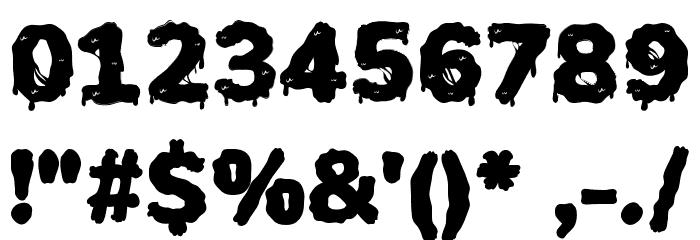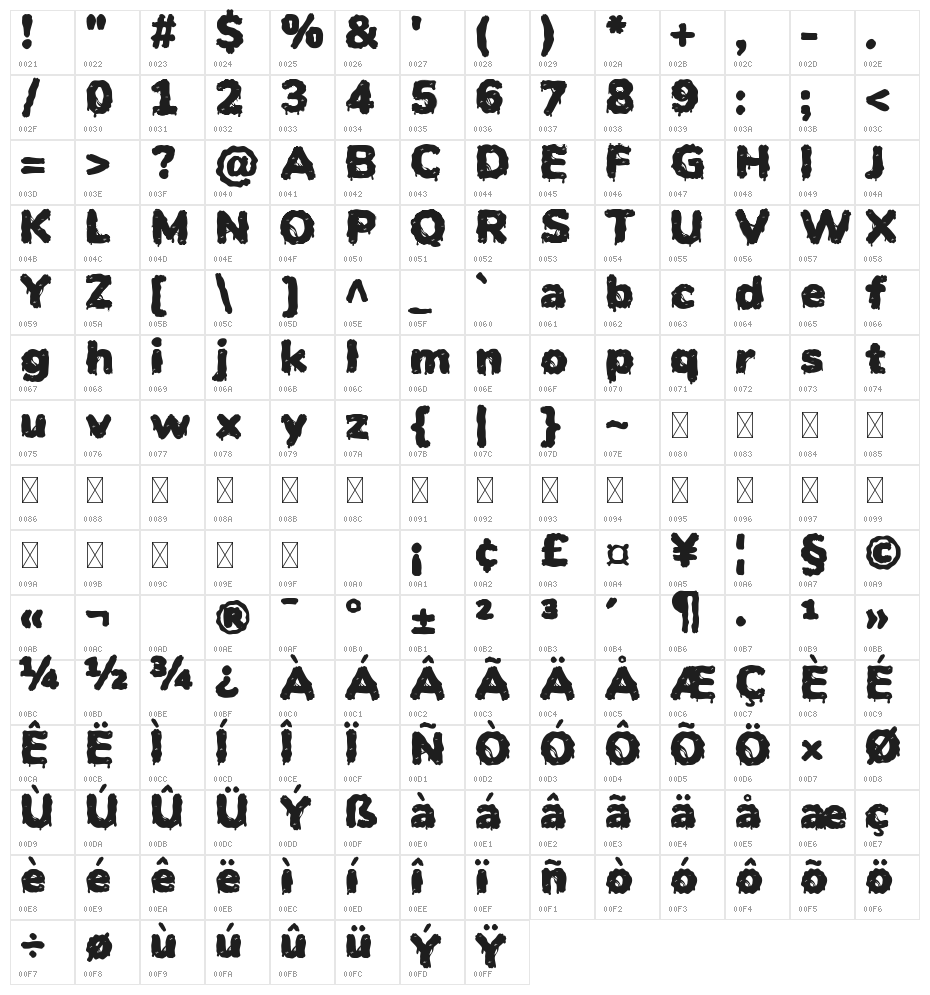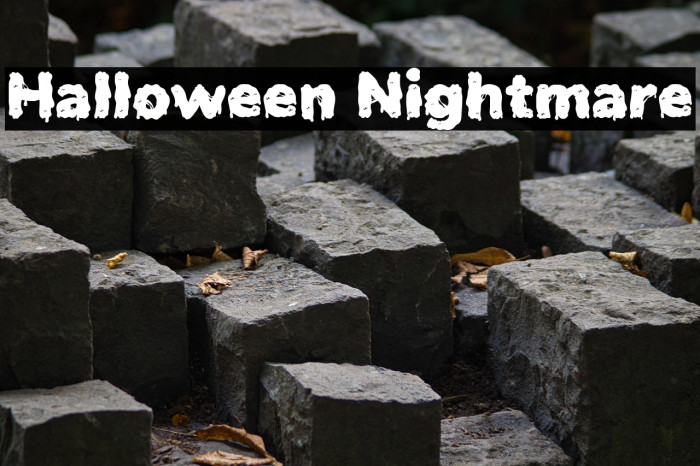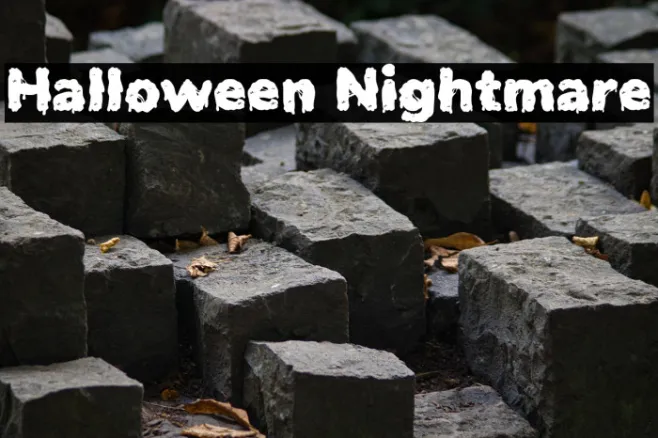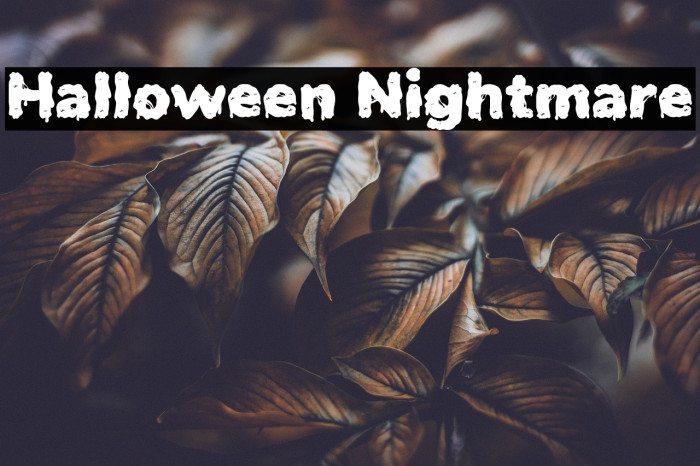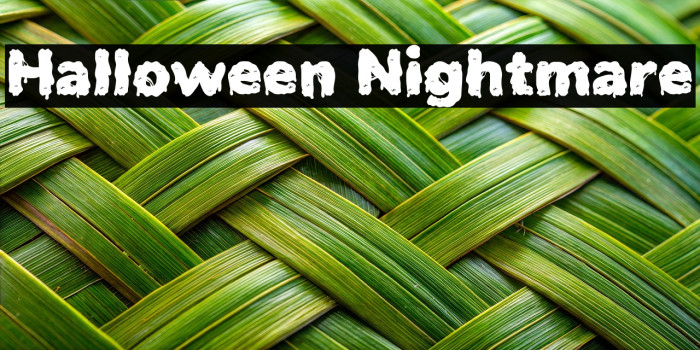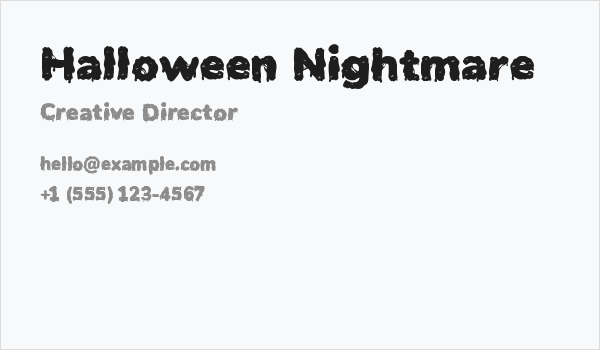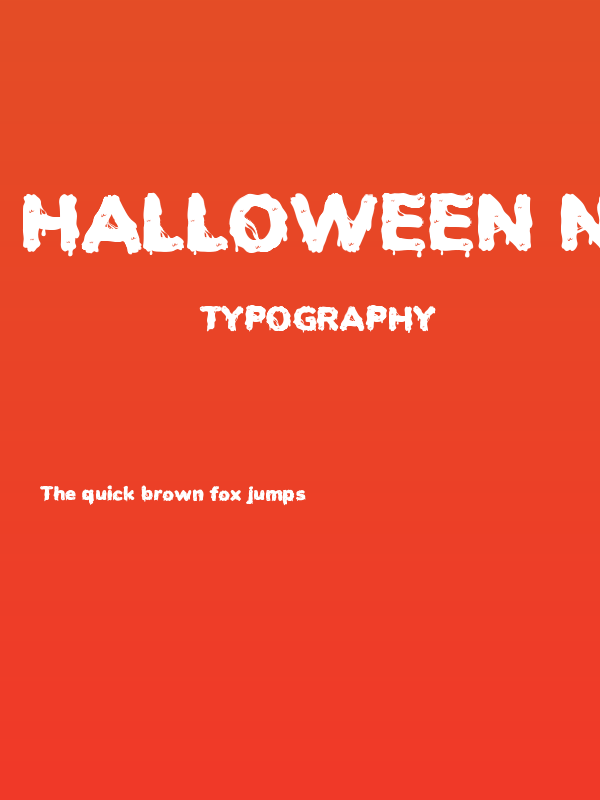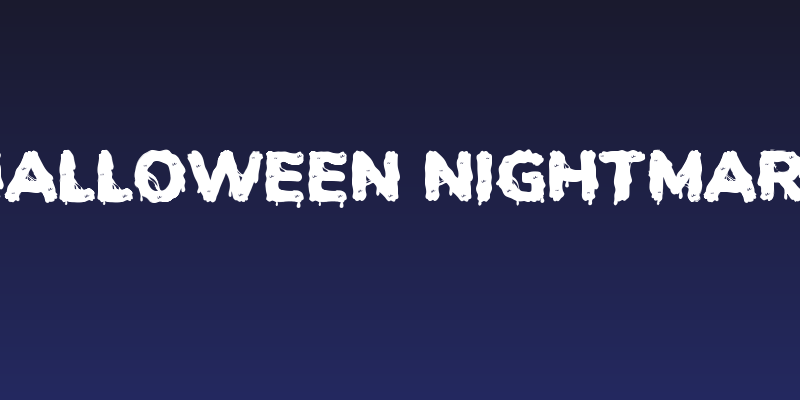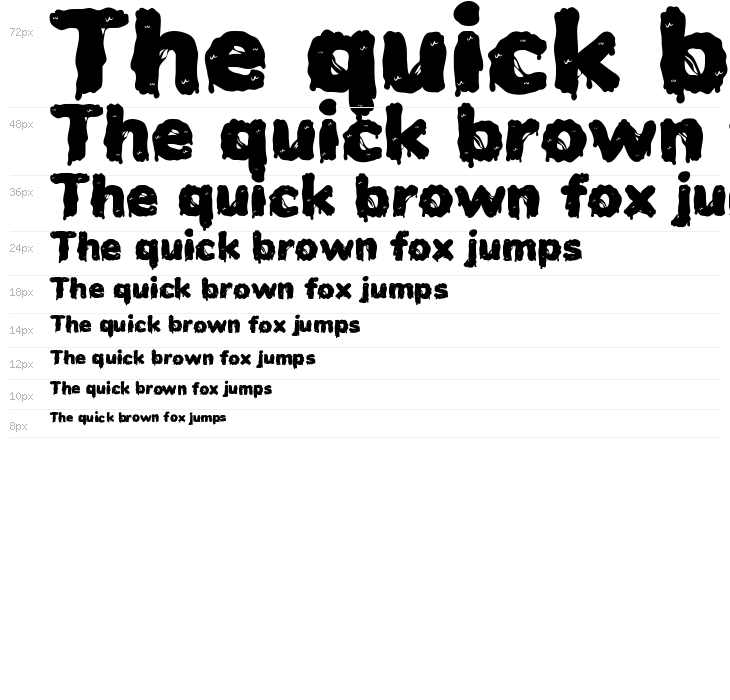
Halloween Nightmare Font
Halloween Nightmare Description
This font exudes a spooky and eerie vibe, perfect for Halloween-themed projects. The letters appear as if they are dripping or melting, adding a sense of horror and mystery. The bold and irregular strokes create a sense of chaos and unease, making it ideal for capturing attention. The uppercase and lowercase letters maintain a consistent style, with numbers and special characters following the same unsettling theme. This font is designed to evoke a sense of fear and intrigue, making it perfect for horror movie posters, haunted house invitations, or any project that requires a touch of the macabre.
| Use Case | Headlines, Posters, Themed Events |
| Proposed Projects | Perfect for Halloween invitations, horror movie posters, haunted house flyers, and themed event branding. |